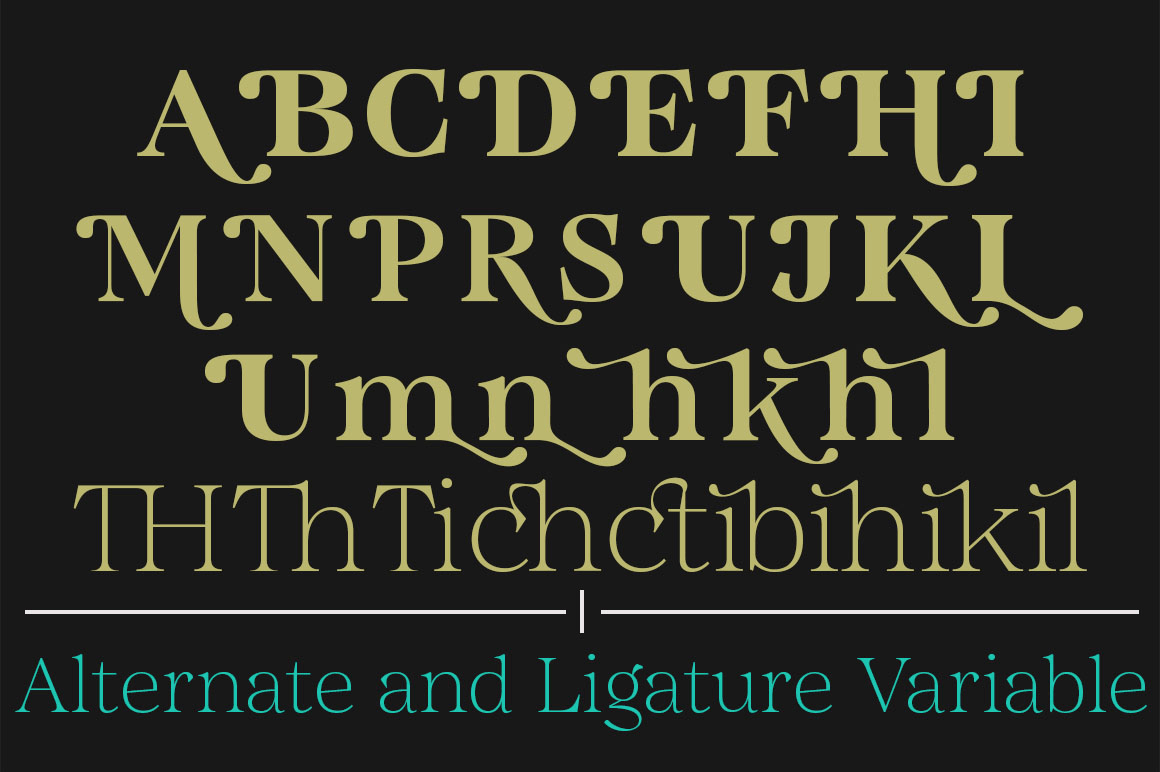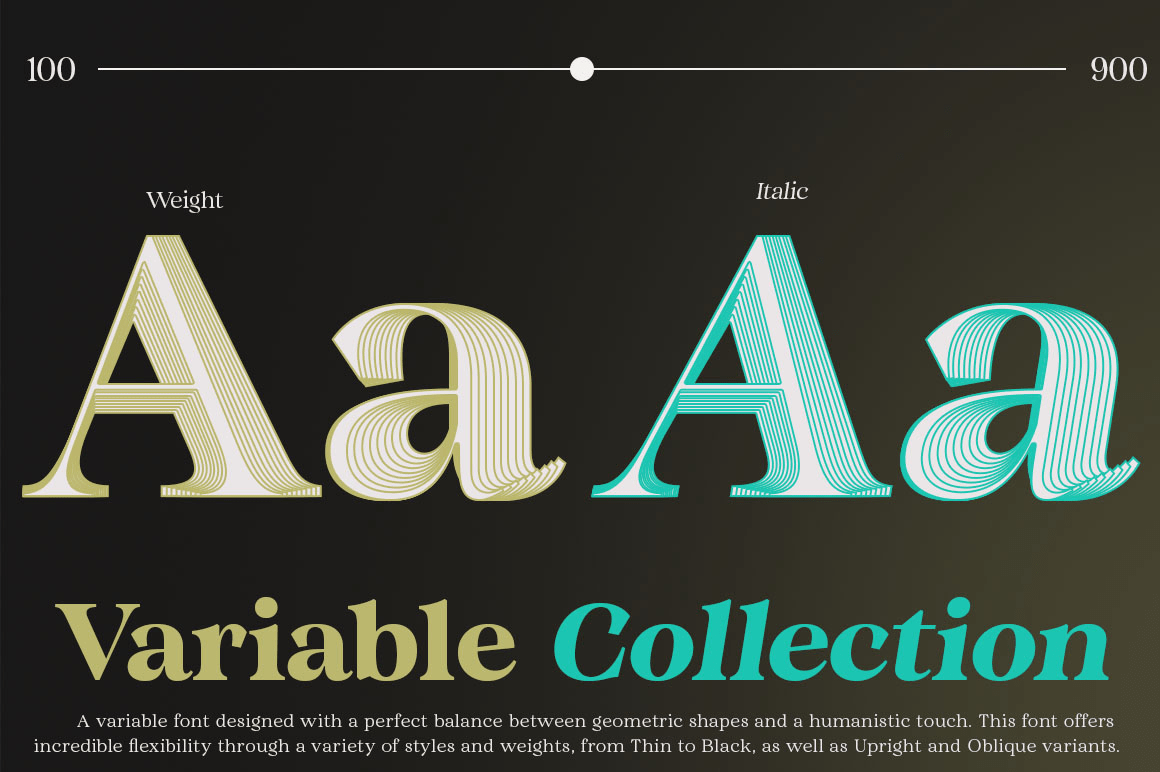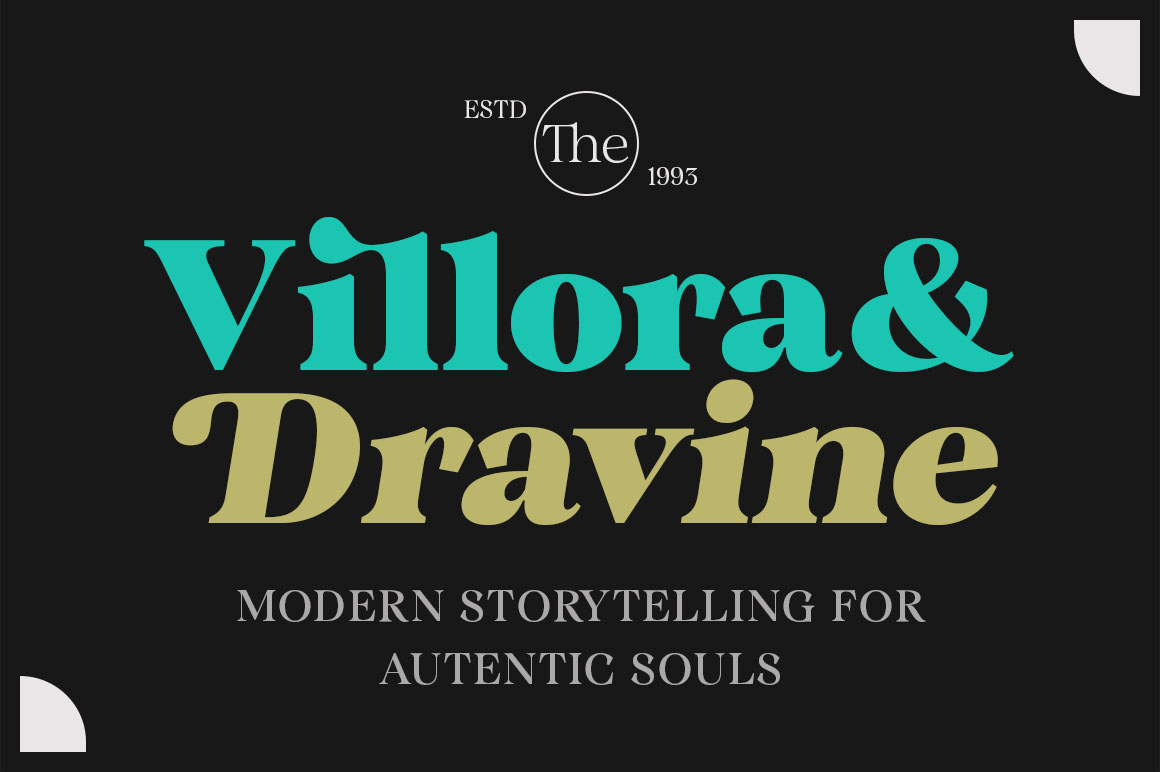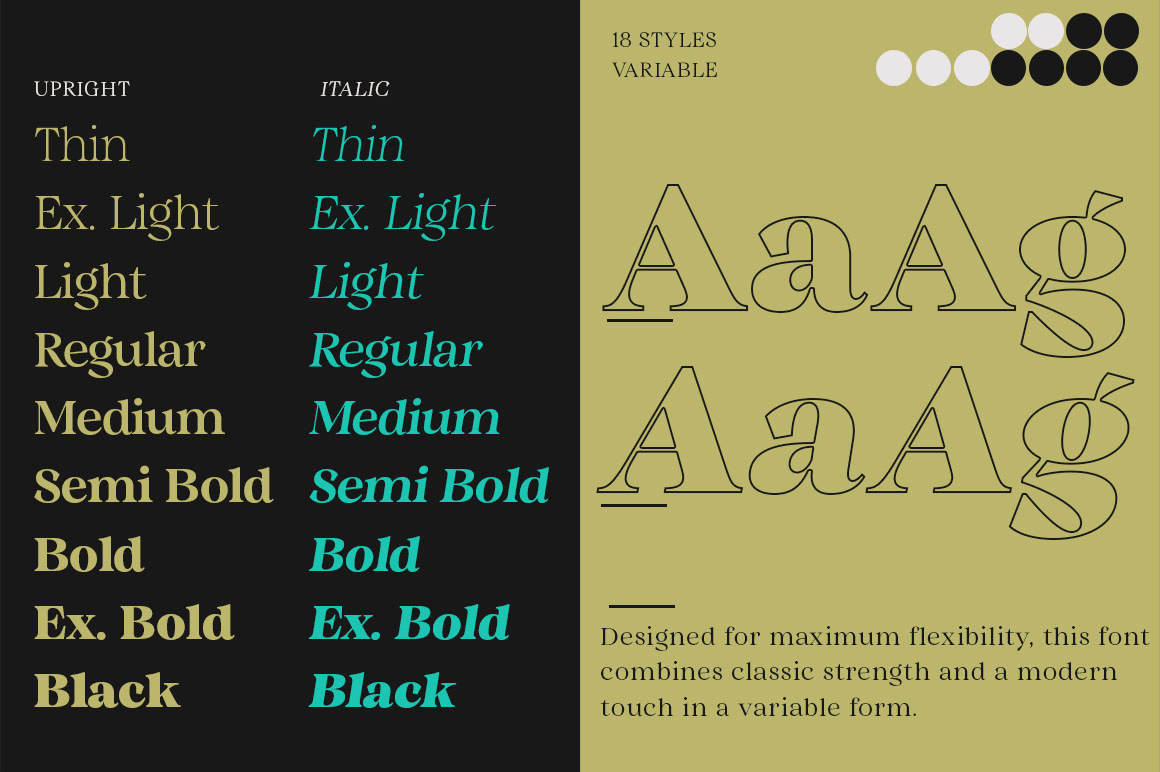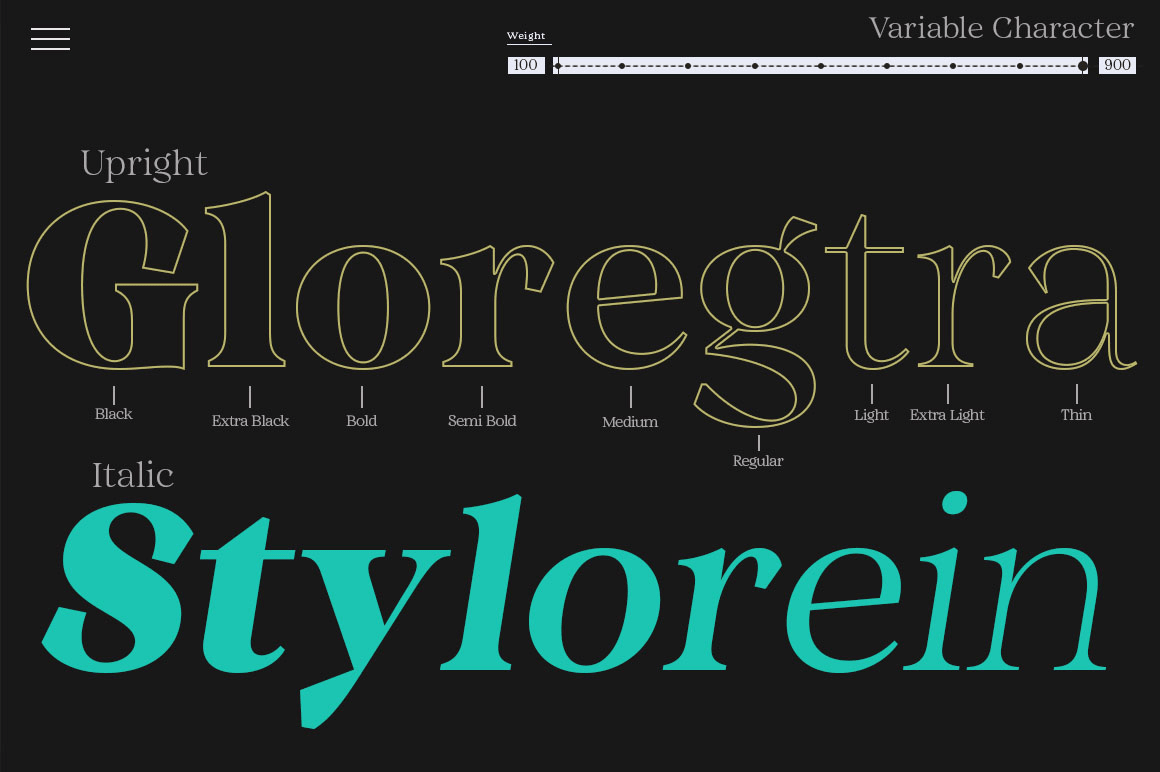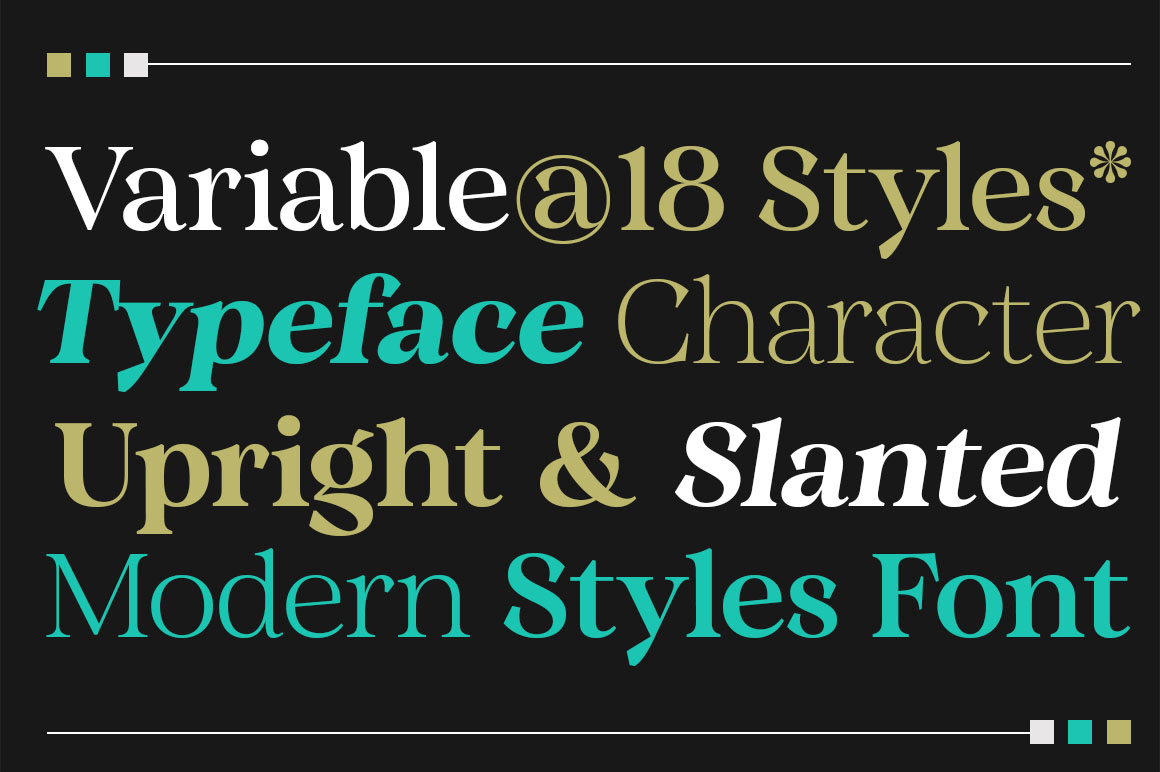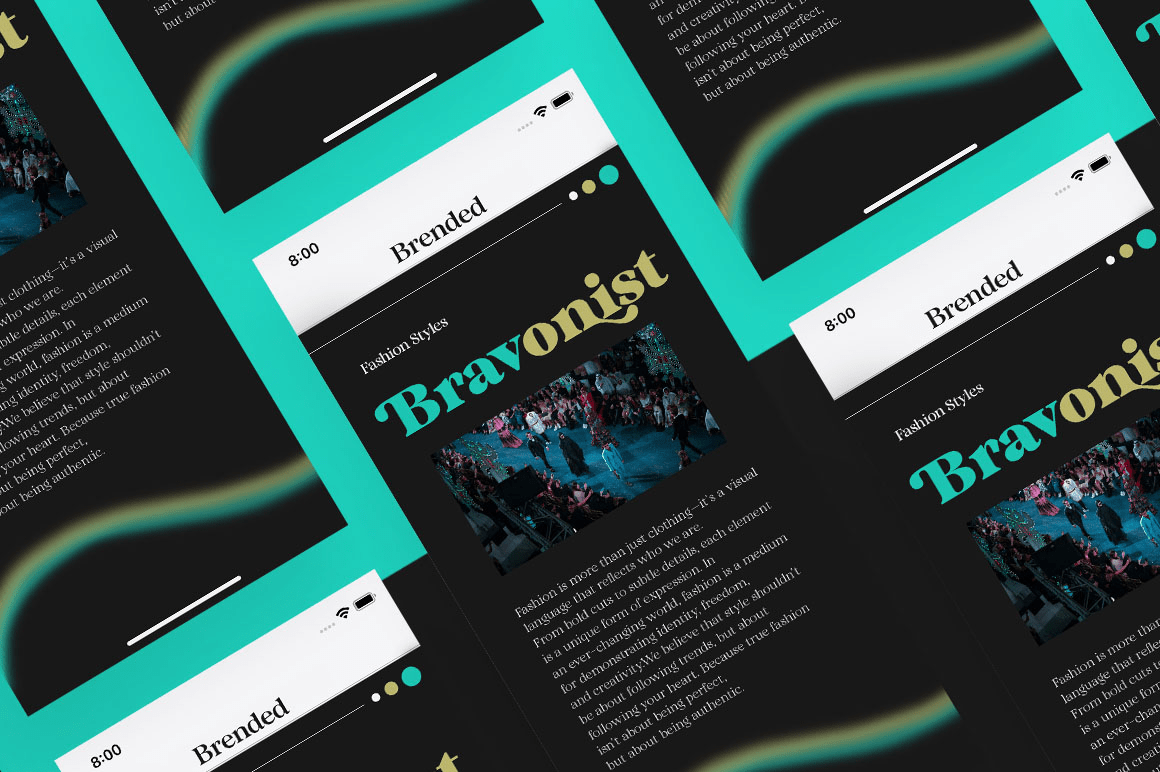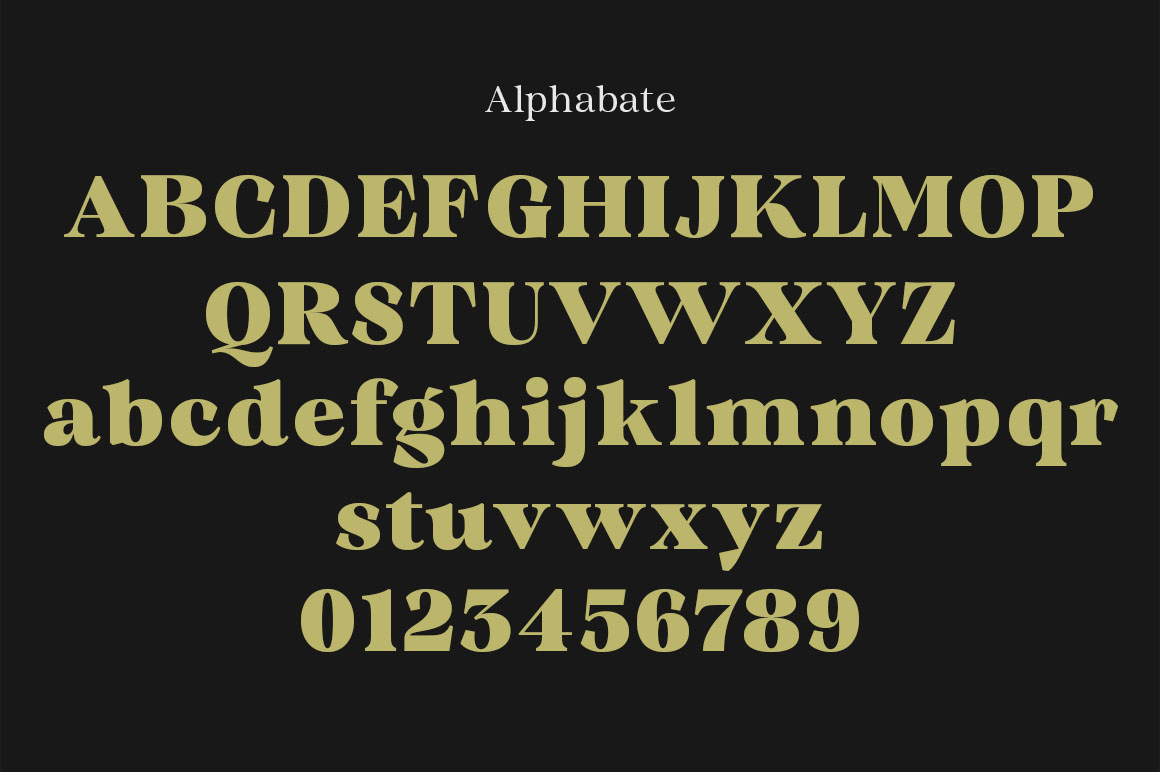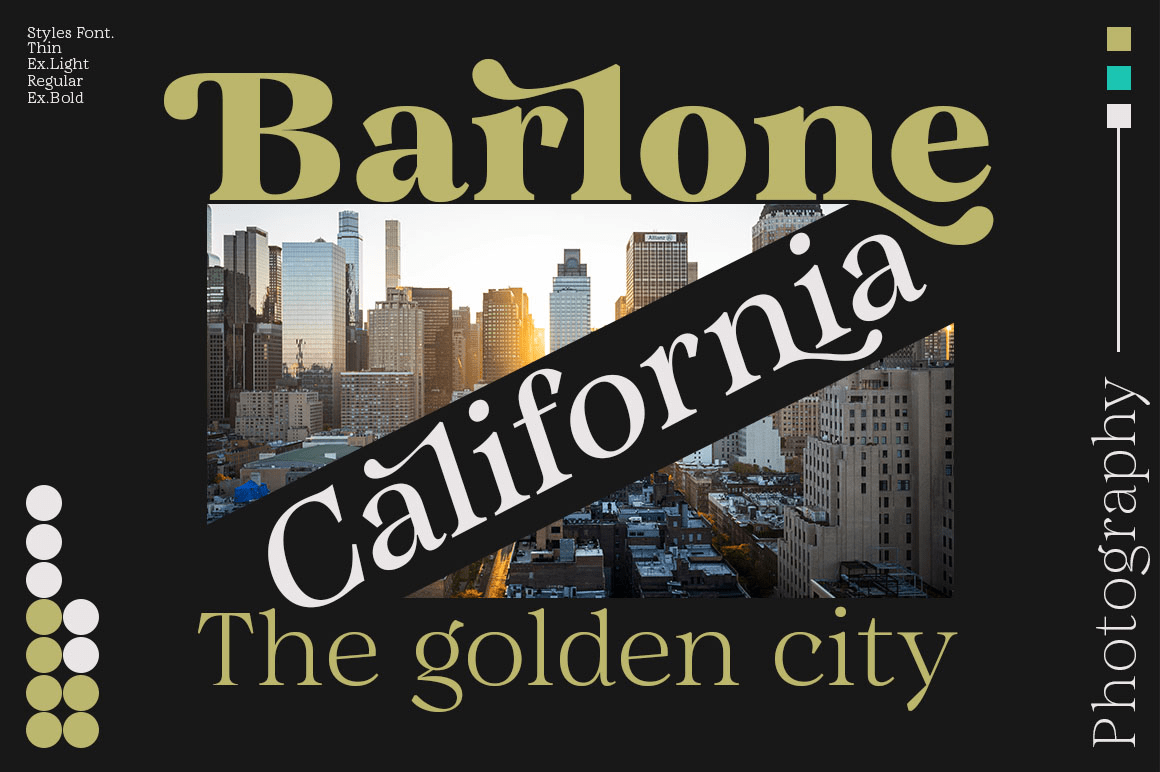
Quirlone
Quirlone is a high-contrast typeface with a transitional, contemporary, harmonious, and stylish feel. This font expands its use by offering weights ranging from Light to Extra Bold. Its natural curves, featuring a captivating italic, are given a generous weighting, while thinner weights have reduced contrast and optical correction to create a warm, soft look.
Quirlone also comes in two versions: Regular and Italic, making it easy for designers to explore and refine beautiful designs, revealing a wealth of visual nuances and hidden secrets.
Quirlone is a great choice for a variety of applications, including editorial design, headlines, branding projects, logo design, packaging, magazine titles, advertisements, and short or long texts.